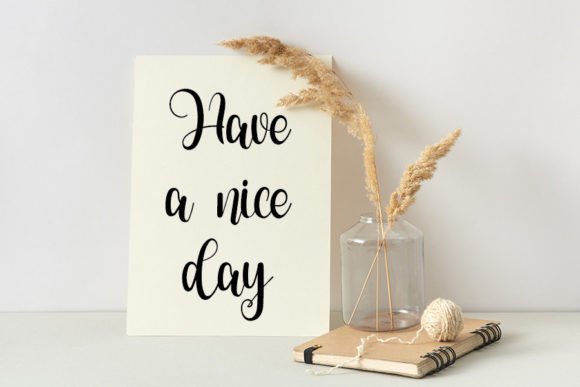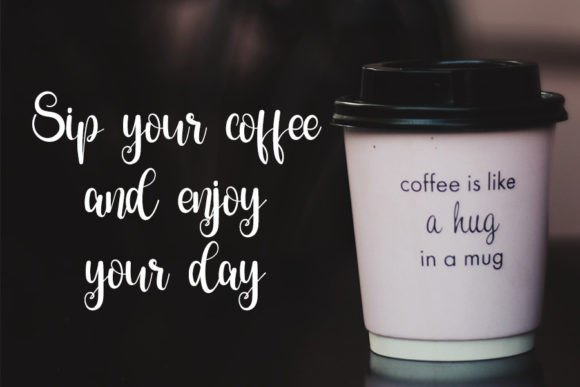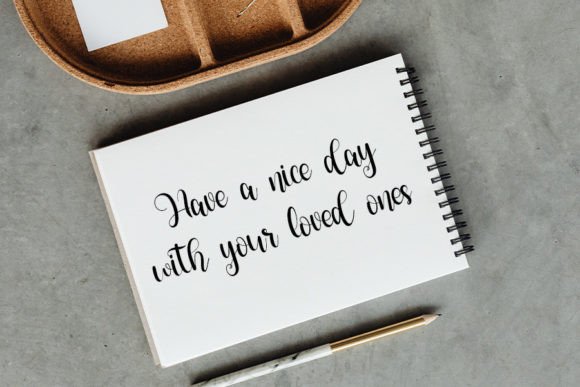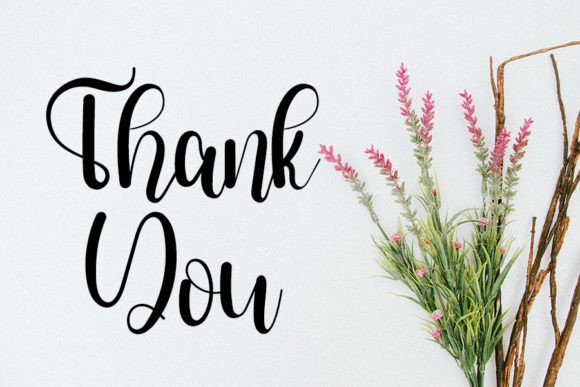
Introducing Fall Coffee Font: Elevate Your Designs with Elegance
As the seasons change and the air grows crisp, designers and crafters are on the lookout for fresh inspiration to infuse their projects with the warmth and coziness of fall. If you’re searching for a font that embodies the essence of the season, look no further than Fall Coffee Font. This stunning handwritten font is a masterpiece of elegance and sophistication, perfect for adding a touch of refinement to your favorite projects.
The Charm of Fall Coffee Font
Fall Coffee Font is a beautifully crafted handwritten font that exudes an air of timelessness and sophistication. Its elegant touch is instantly captivating, making it an ideal choice for designers and crafters seeking to create spectacular designs that stand out from the crowd. The font’s incredibly distinct style is sure to leave a lasting impression on your audience, whether you’re working on a branding project, packaging design, or social media graphics.
Key Features of Fall Coffee Font
- Handwritten Elegance: Fall Coffee Font boasts a beautifully handwritten style that adds a touch of warmth and personality to your designs.
- Distinctive Style: The font’s unique and timeless style sets it apart from more generic fonts, ensuring your designs will stand out.
- Elegant Touch: Perfect for projects that require a level of sophistication and refinement.
- Versatility: Suitable for a wide range of projects, from branding and packaging to social media graphics and more.
Fall Coffee Font is an excellent choice for designers and crafters looking to elevate their projects with a touch of elegance. Whether you’re creating:
- Branding Materials: Use Fall Coffee Font to create stunning logos, business cards, and letterheads that exude professionalism and style.
- Packaging Design: Add a touch of sophistication to your product packaging with this beautiful font.
- Social Media Graphics: Create eye-catching social media graphics, quotes, and posters that showcase your brand’s personality.
- Stationery and Invitations: Use Fall Coffee Font to create beautiful stationery, invitations, and greeting cards that make a lasting impression.
Tips for Using Fall Coffee Font
To get the most out of Fall Coffee Font, consider the following tips:
- Pair with Complementary Fonts: Combine Fall Coffee Font with simpler fonts to create visual interest and hierarchy in your designs.
- Experiment with Colors: Fall Coffee Font looks stunning in a range of colors, from rich autumnal tones to bold and bright hues.
- Play with Texture and Patterns: Add depth and interest to your designs by incorporating texture and patterns that complement the font’s elegant style.
| Font Name | Fall Coffee Font |
| Author | Kongsi.Co |
Fall Coffee Font is a truly exceptional handwritten font that is sure to capture the hearts of designers and crafters alike. Its elegant touch, distinctive style, and versatility make it the perfect choice for a wide range of projects. Whether you’re looking to create stunning branding materials, beautiful packaging, or eye-catching social media graphics, Fall Coffee Font is the perfect companion for your creative journey. So why wait? Fall in love with Fall Coffee Font and elevate your designs to new heights!